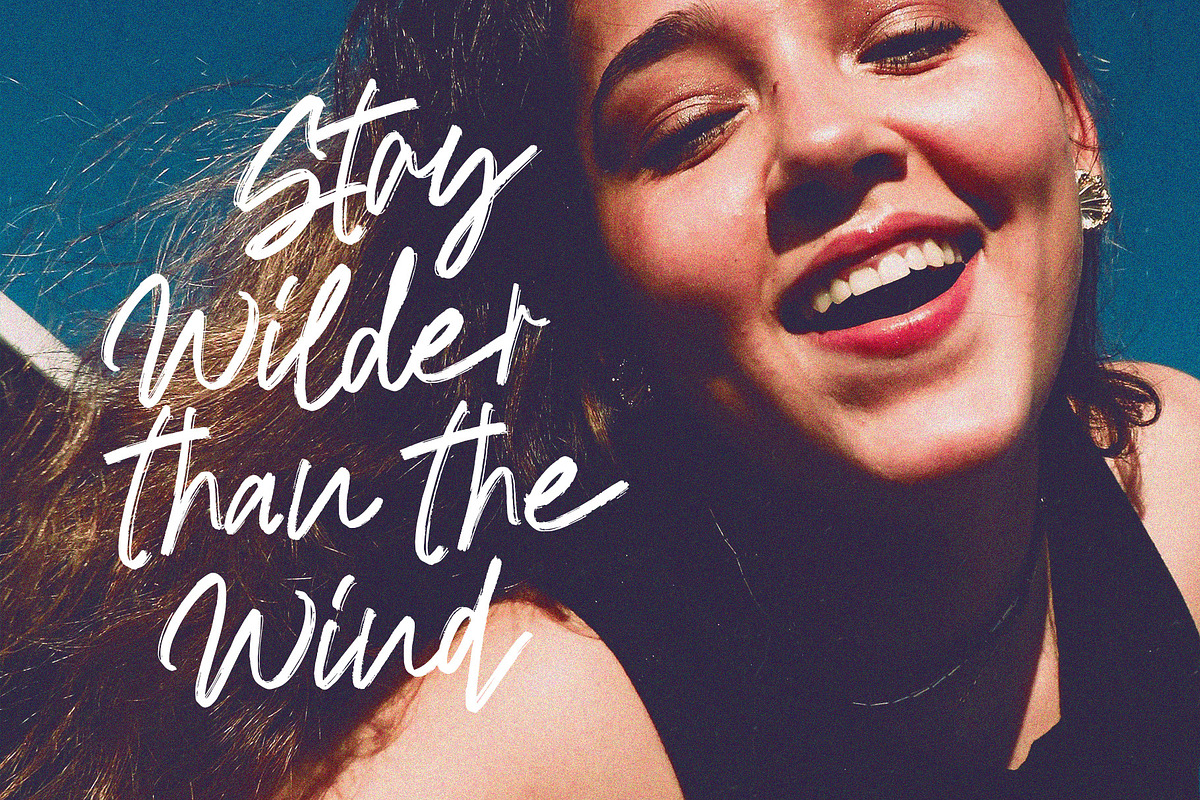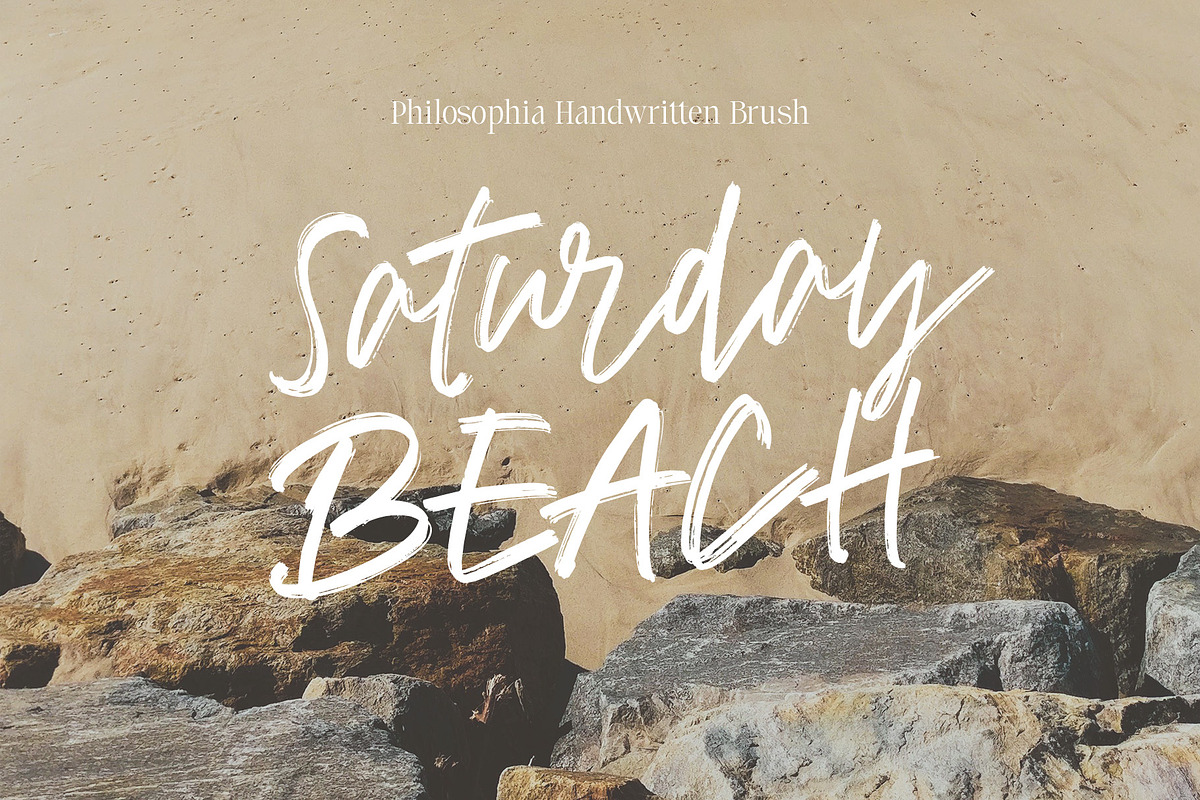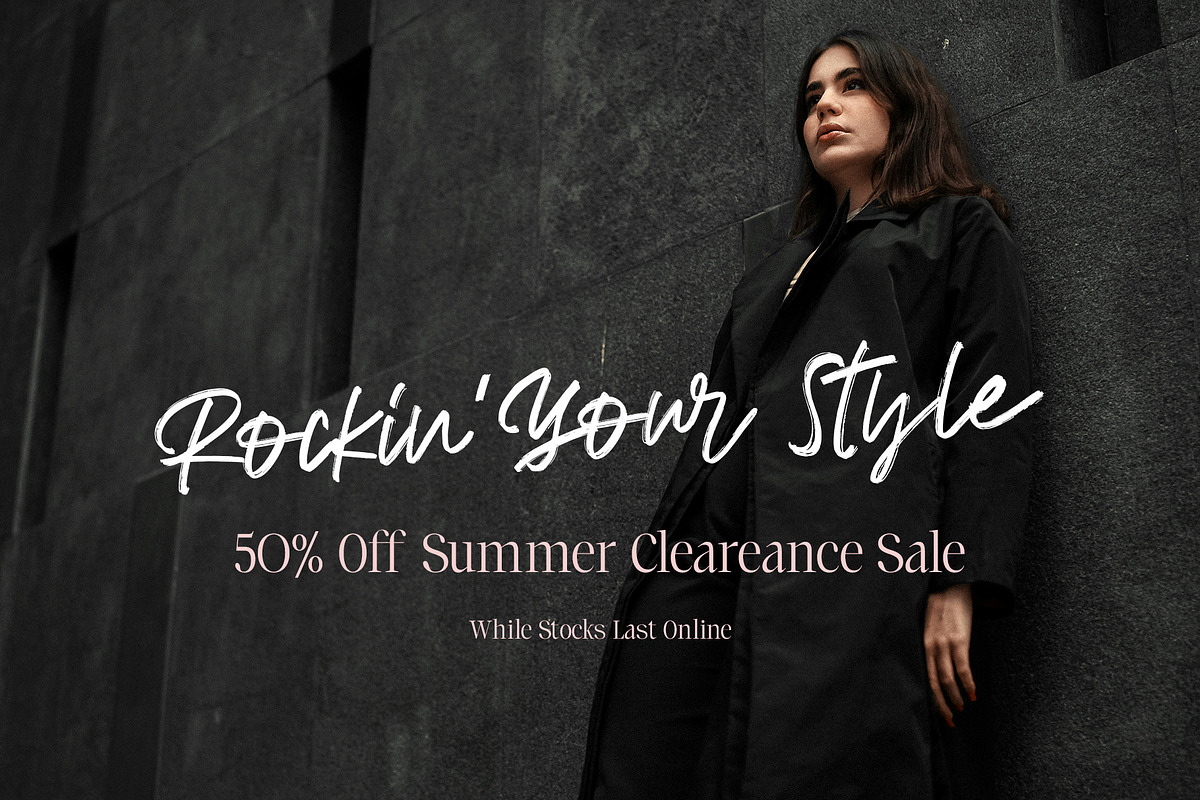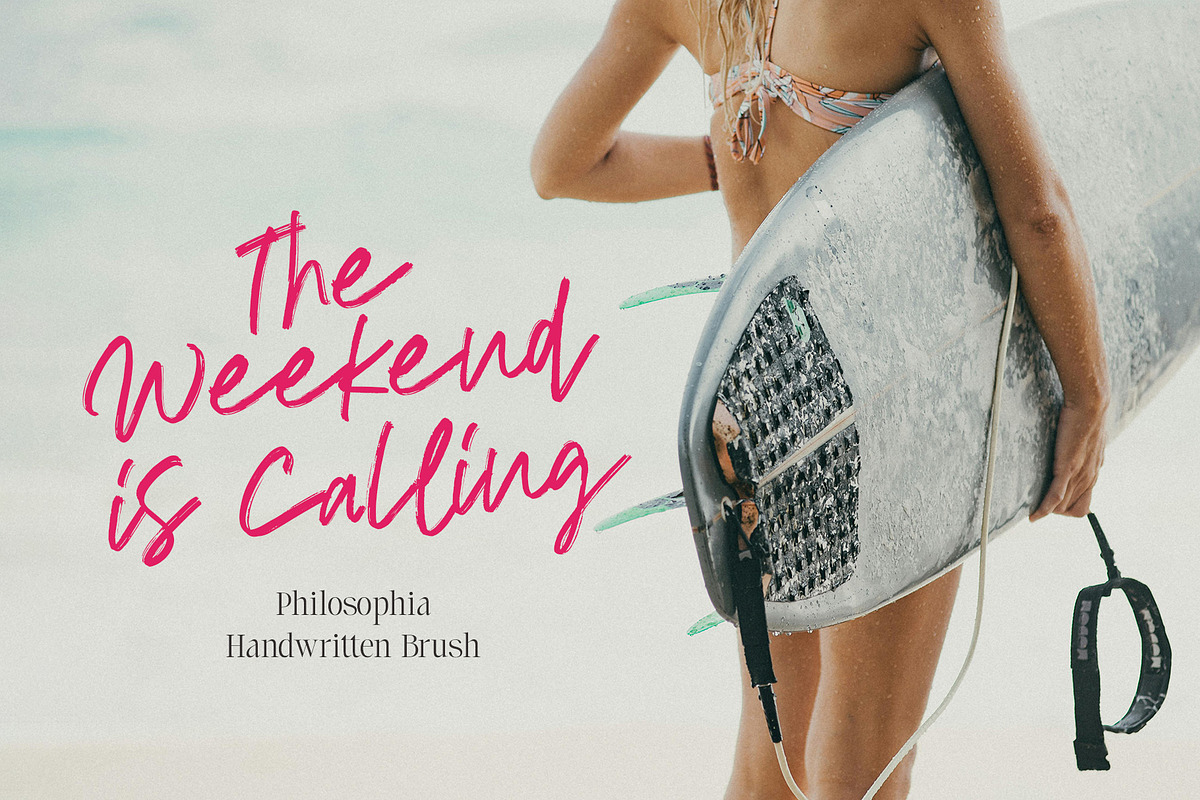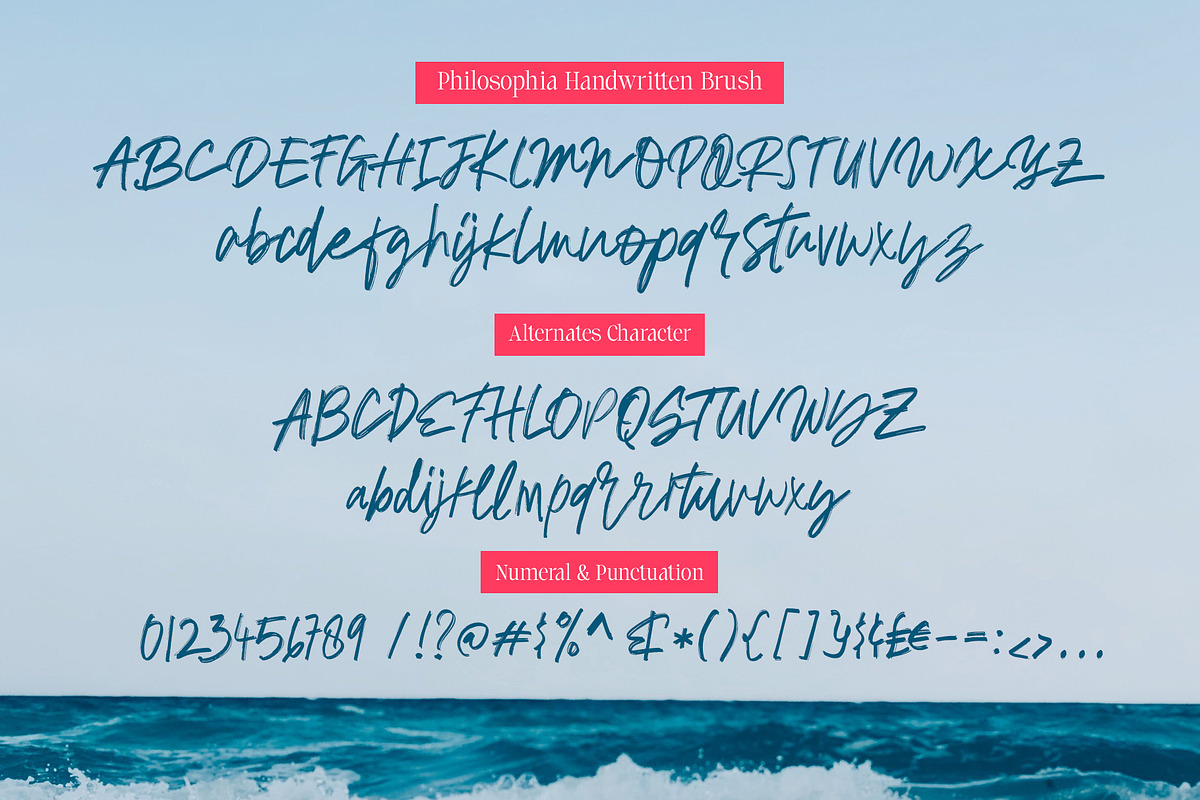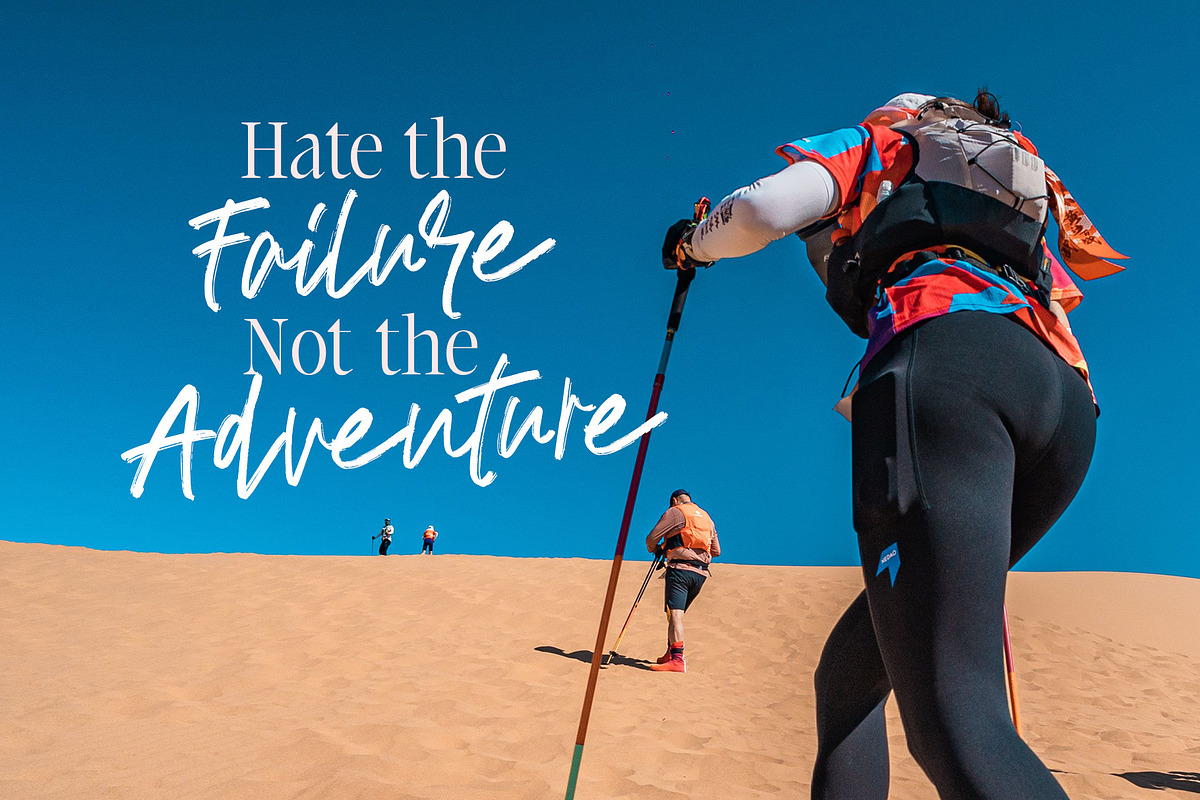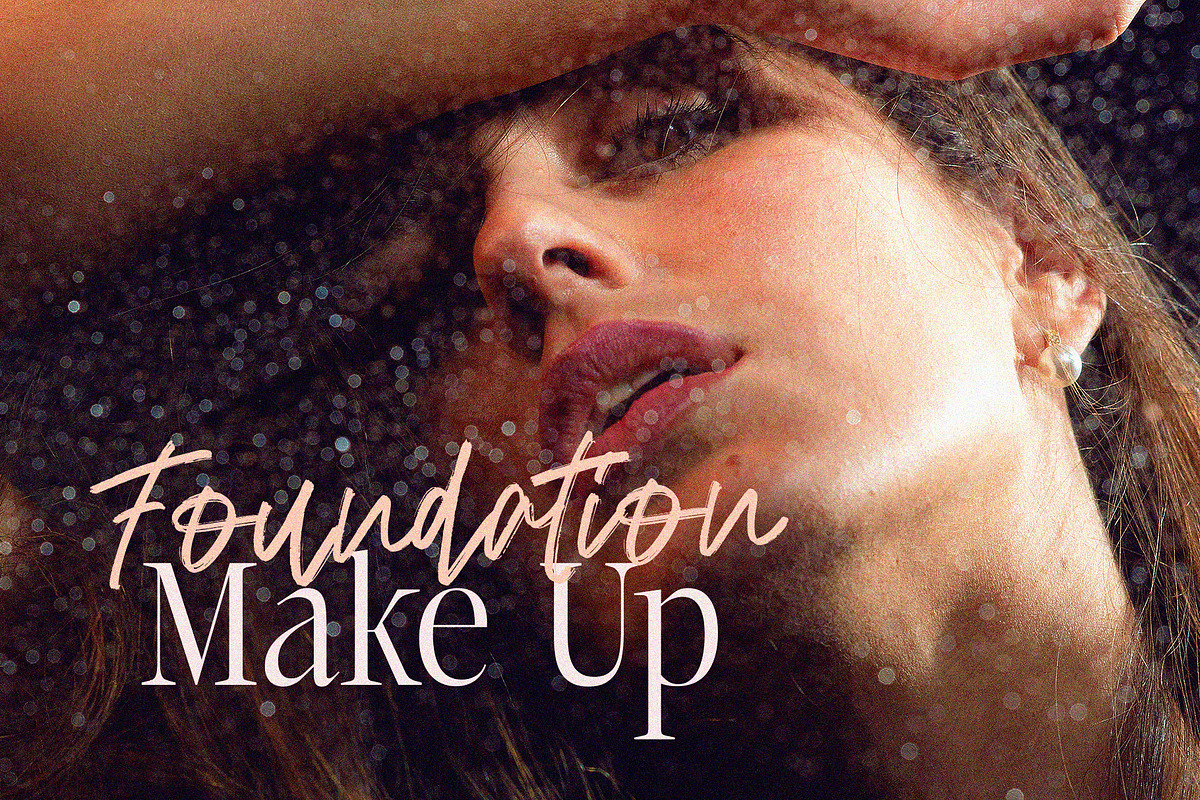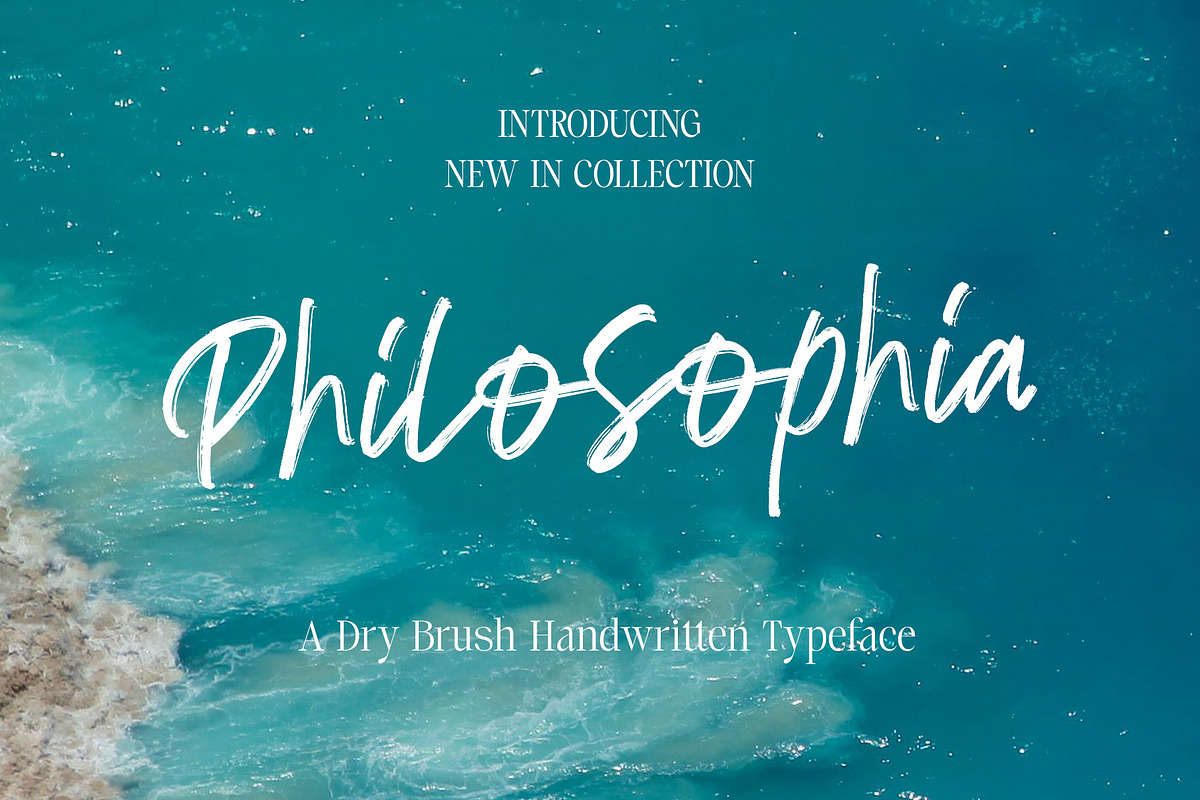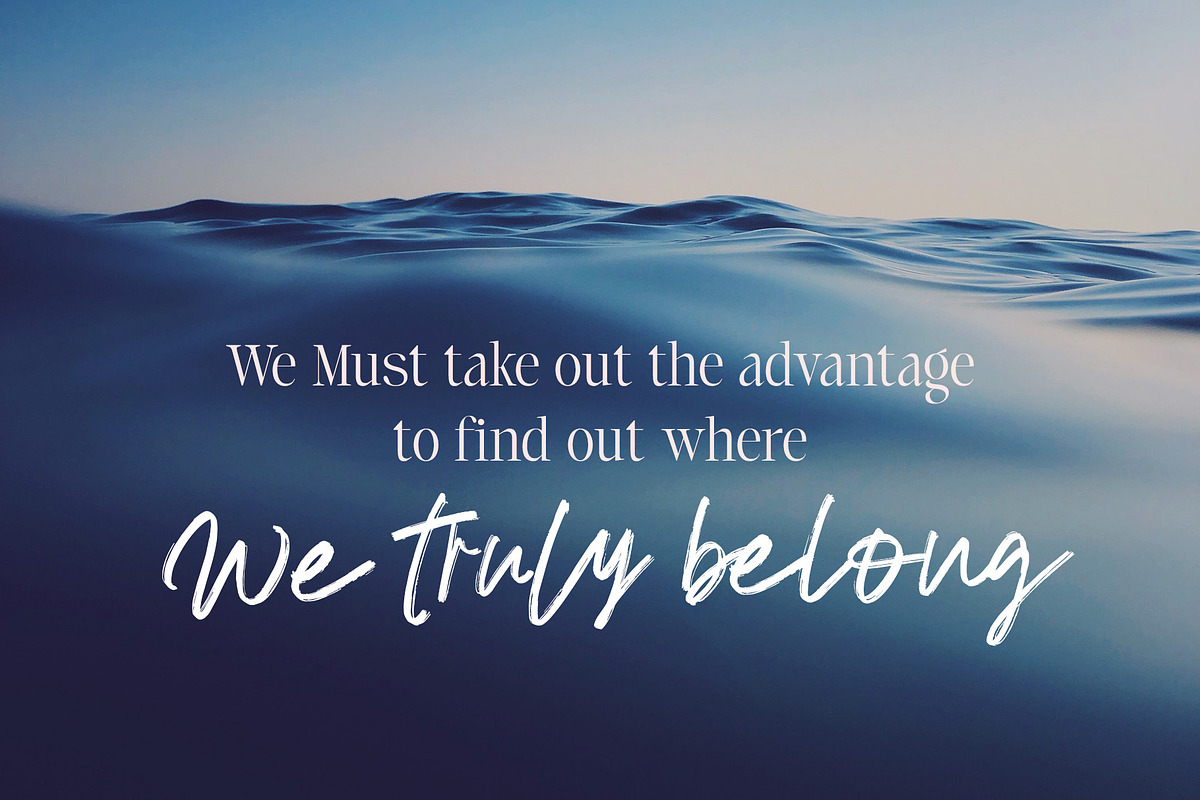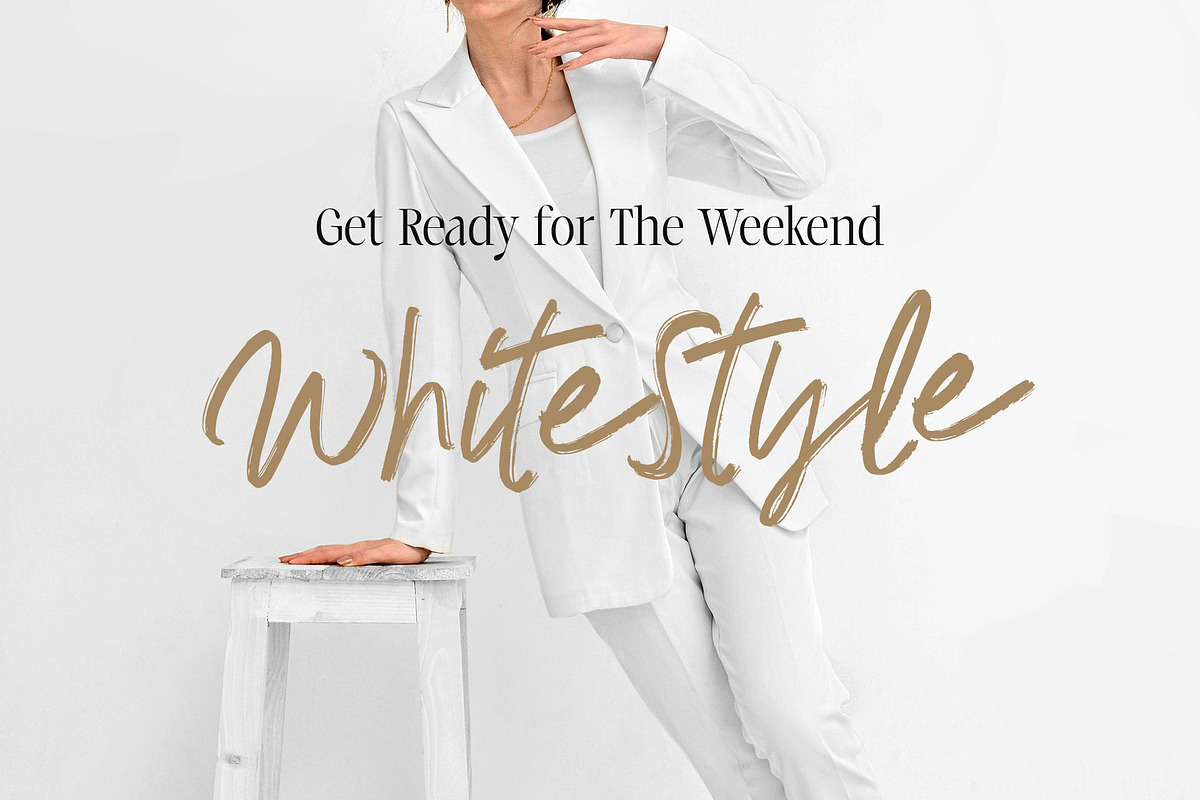
Philosophia Brush
Introducing : Philosophia. handwritten font with brush style and still have their own passion. Made with a dry scratch style but still looks cool and very suitable for use in a variety of promotional, business, and other art needs, such as branding projects, homeware designs, product packaging - or simply as a stylish text overlay to any background image.